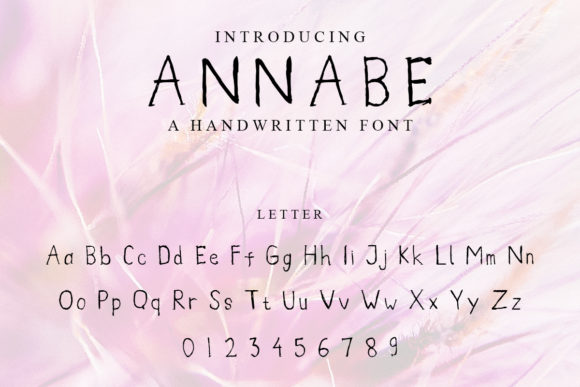
The Spooky Charm of Annabe Font: A Designer’s Delight
I’ll never forget the time I was working on a Halloween-themed project for a client, and I just couldn’t find the right font to capture the spooky essence. The design was almost complete, but it was missing that special something to make it pop. That’s when I stumbled upon Annabe Font, a simple yet scary handwritten font that completely transformed my design. In this article, I’ll share my experience with Annabe Font, its features, and how to make the most of it in your designs.
A Personal Review of Annabe Font
As a designer, I’m always on the lookout for fonts that can add a unique touch to my projects. Annabe Font has become one of my go-to fonts, especially for Halloween or October-themed designs. Here’s what I love about it:
- ✨ Unique and quirky: Annabe Font has a distinctive handwritten style that’s both simple and scary at the same time.
- ✅ Versatile: It can be used for a wide range of designs, from posters and flyers to social media graphics and invitations.
- 💡 Easy to read: Despite its quirky nature, Annabe Font is surprisingly easy to read, making it perfect for body text or headings.
While Annabe Font is an excellent choice for many designs, there are a few things to keep in mind:
- 🤔 Limited use cases: While Annabe Font is perfect for Halloween or October-themed designs, it might not be the best choice for other types of projects.
- ⚠️ Glyph limitations: As with any font, there might be limitations to the glyphs and special characters available in Annabe Font.
The Backstory of Annabe Font
While the true origins of Annabe Font are unknown, it’s said to have been inspired by the spooky and mysterious atmosphere of old cemeteries and abandoned mansions. The font’s creator aimed to capture the essence of Halloween in a simple yet effective way, making Annabe Font a popular choice for designers and crafters alike.
| Font Name | Annabe Font |
| Author | minetypestudio |
| What is Annabe Font best used for? | Annabe Font is perfect for Halloween or October-themed designs, such as posters, flyers, social media graphics, and invitations. |
| Is Annabe Font easy to read? | Yes, despite its quirky nature, Annabe Font is surprisingly easy to read, making it suitable for body text or headings. |